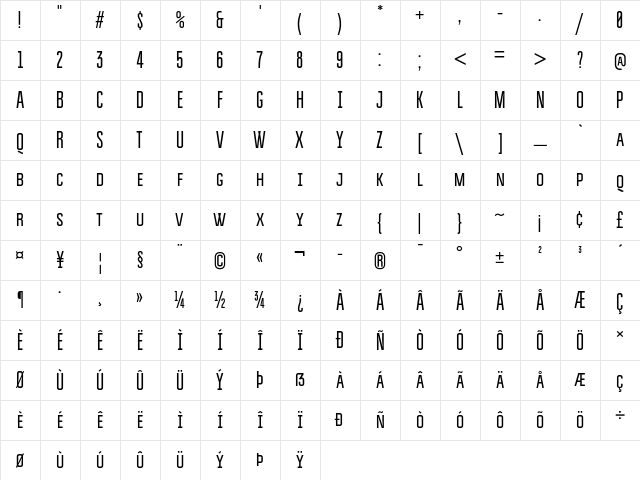
BravoSC Regular
| Foundry | Michael Chereda |
| Designer | Michael Chereda |
Design Context for BravoSC Typeface
BravoSC offers clean, dependable letterforms without strong stylistic allegiance, making it a practical choice for designers who need flexibility.